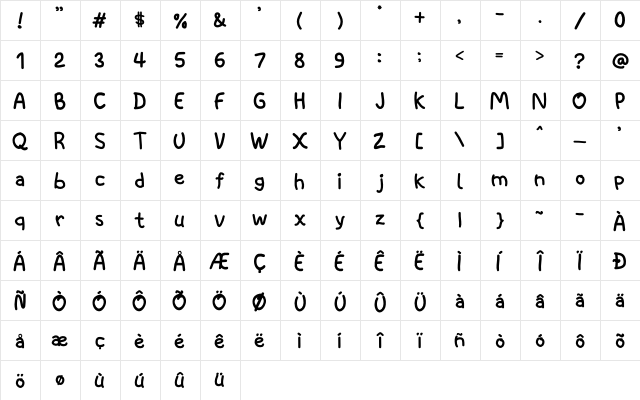
Space kids Regular
| Designer | MaknaStudio |
Design Context for Space kids Typeface
Space kids has an approachable, lighthearted character — its loose, expressive forms are well-suited to children's content, casual branding, and fun-first design.
Font Pairing: Pairs well with a rounded or humanist sans for body copy, maintaining the friendly tone without relying on Space kids to carry extended reading.
Pro Tip: Use Space kids at larger display sizes where its expressive character can land. Pair with a clean, simple sans for body copy to maintain readability.